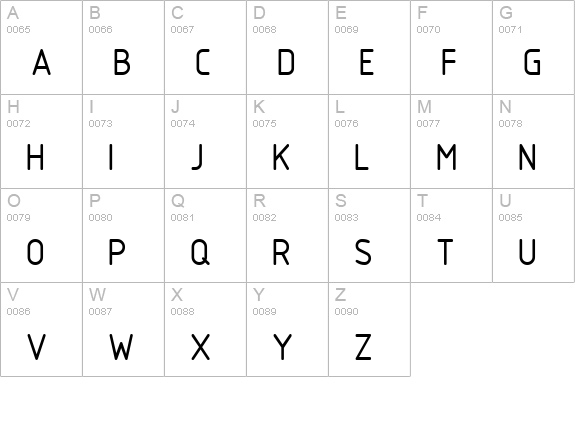
ISOCPEUR font is a timeless typeface that exudes a sense of elegance and professionalism. With its clean letterforms and balanced proportions, this font is perfect for a wide range of design projects, from corporate branding to editorial layouts. Designed with meticulous attention to detail, ISOCPEUR font offers excellent legibility even at small sizes, making it ideal for both print and digital applications. The clarity and consistency of its characters ensure that your message is conveyed with utmost clarity, enhancing the overall visual appeal of your design. One of the most remarkable aspects of ISOCPEUR font is that it is available for free. Yes, you read that right – this versatile font can be downloaded at absolutely no cost on FontsMarket.com. This makes it a valuable resource for designers, students, and anyone in need of a high-quality font without breaking the bank. Whether you're designing a logo, creating a website, or crafting an eye-catching poster, ISOCPEUR font will effortlessly elevate your project to a whole new level. Its timeless aesthetic and versatility make it a go-to choice for designers who seek a font that can seamlessly blend with any design style or concept. So why wait? Head over to FontsMarket.com and unlock the potential of ISOCPEUR font. With its free availability, you can experiment, explore, and unleash your creativity without any limitations. Download this remarkable font today and elevate your designs to new heights.